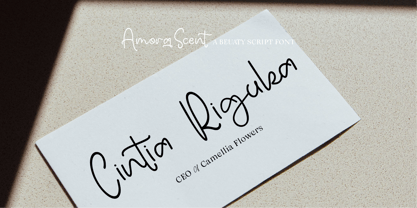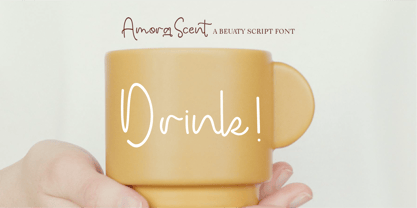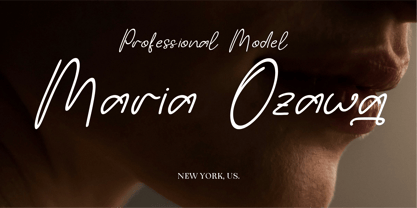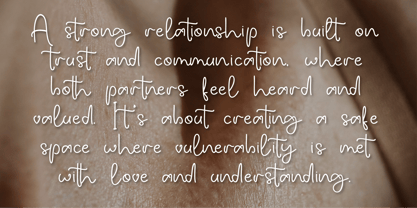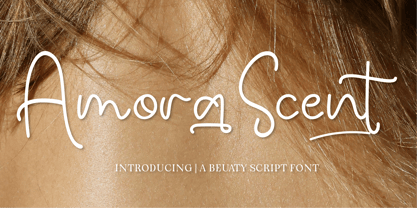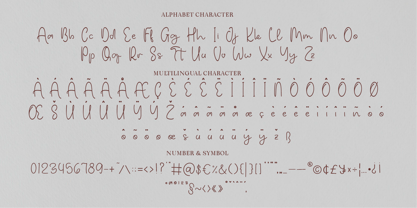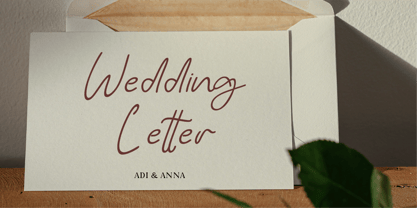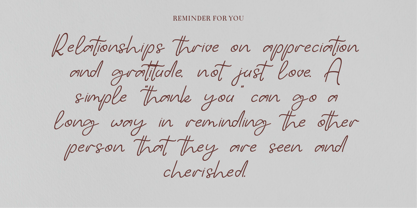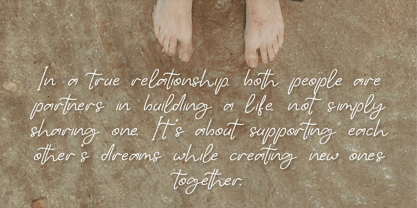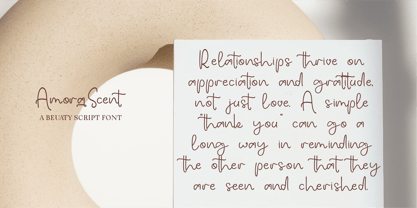
CF Amora Scent
by Indotype
The CF Amora Scent Font Family was designed by Gilang Mei Nugraha, Frederik Aristaputra and published by Indotype. CF Amora Scent contains 2 styles and family package options.
Amora Scent is a beauty-inspired script font that embodies grace and elegance in every stroke. Designed with a feminine touch, it features fluid, interconnected letters that radiate charm and sophistication. Perfect for personal branding, wedding designs, beauty product packaging, and heartfelt invitations, Amora Scent offers a harmonious blend of style and readability. Elevate your projects with this versatile and timeless font that makes every message feel personal and heartfelt.